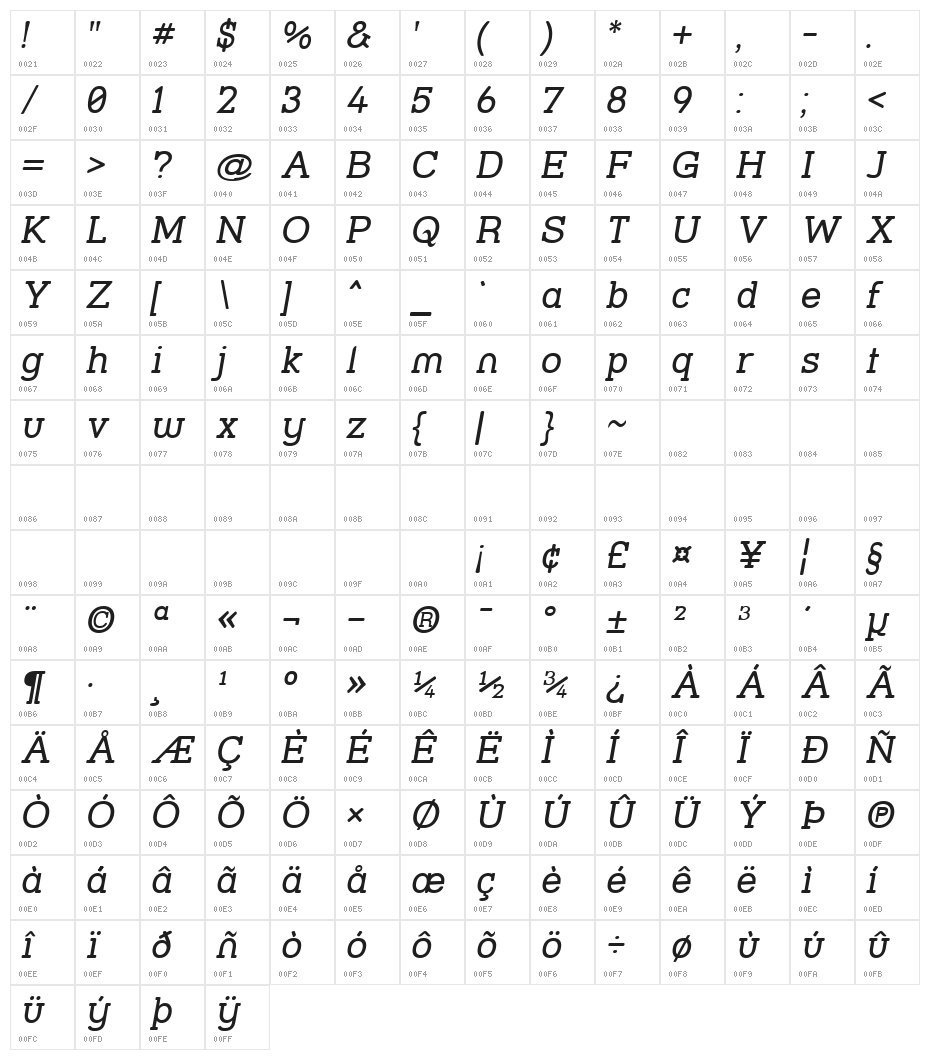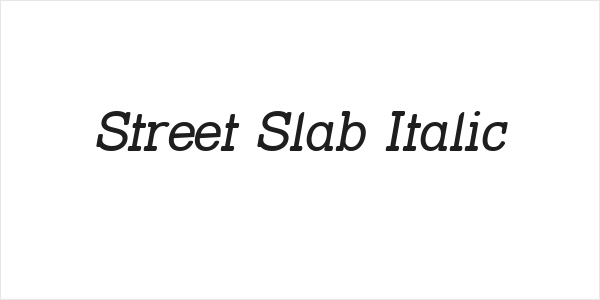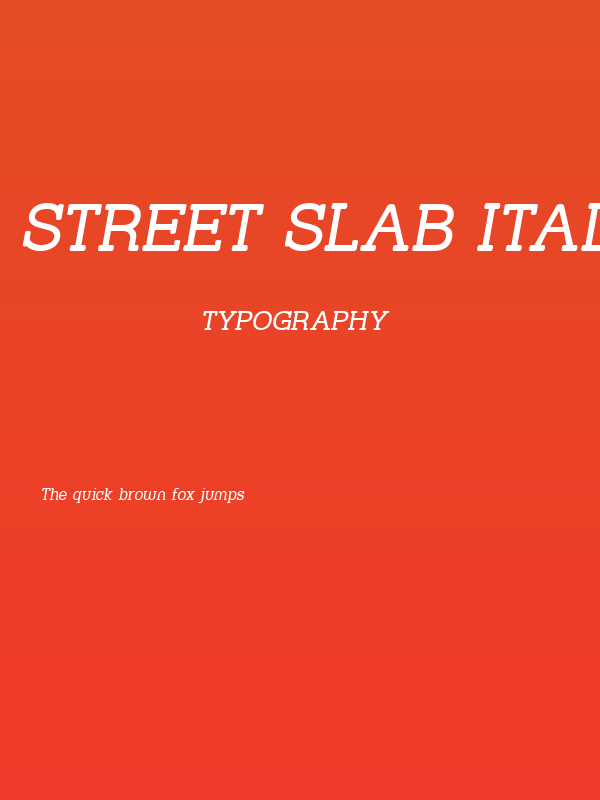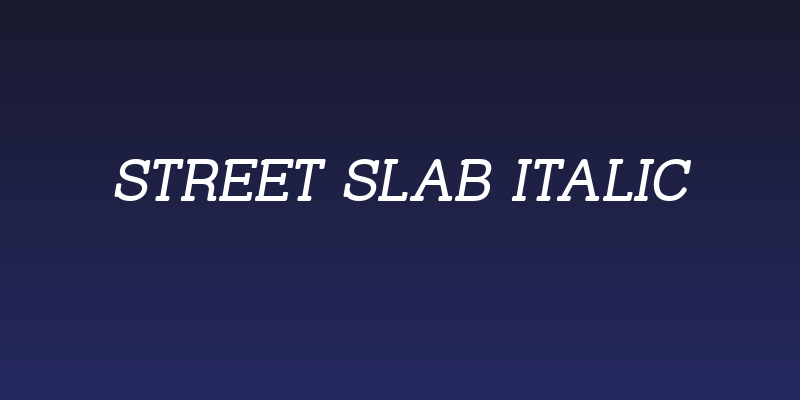
Street Slab Italic Font
Street Slab Italic Description
This font features a distinctive slab serif style with an italic slant, giving it a dynamic and modern appearance. The characters are bold and robust, with thick, consistent strokes that provide a strong presence on the page. The uppercase letters are slightly condensed, while the lowercase letters maintain a more open and rounded form. The numerals are clear and legible, matching the overall boldness of the alphabet. Special characters are well-integrated, maintaining the same weight and style as the alphanumeric characters. This font's italic nature adds a sense of movement and fluidity, making it suitable for a variety of design applications.
| Proposed Projects | Ideal for branding, headlines, posters, and any design work that requires a strong, impactful typeface. |